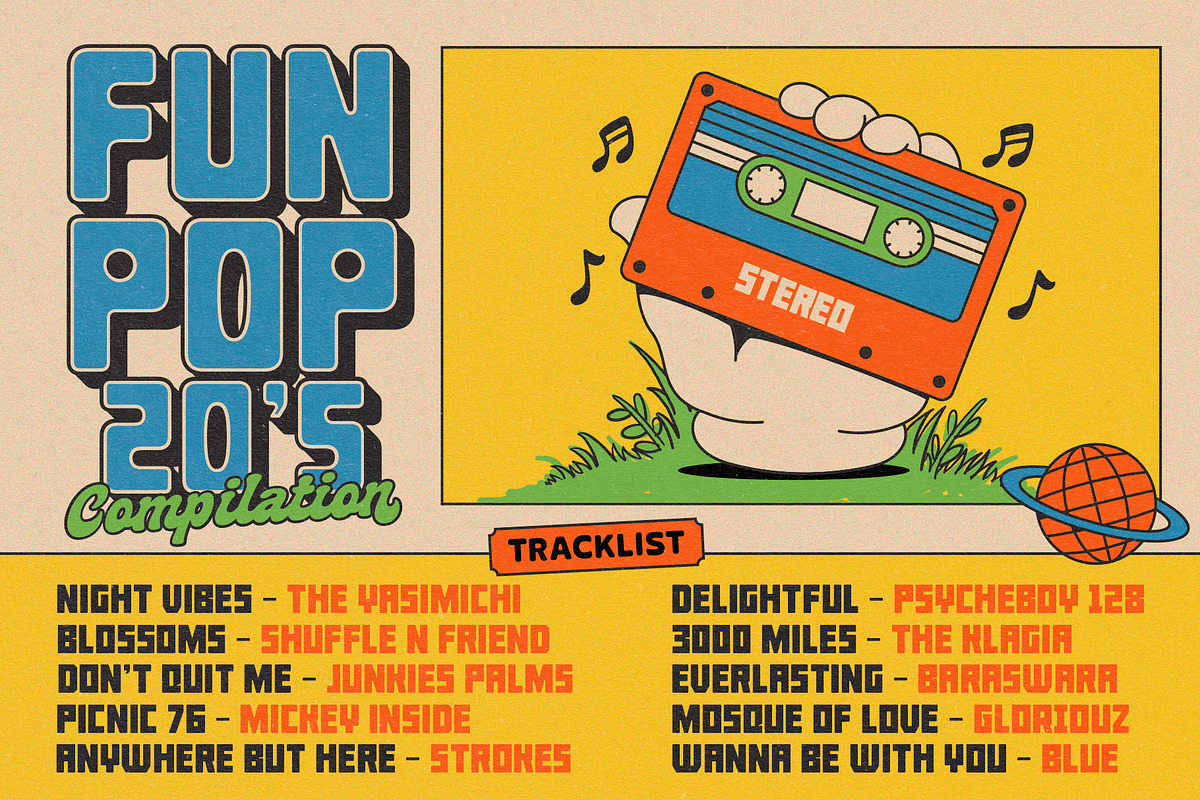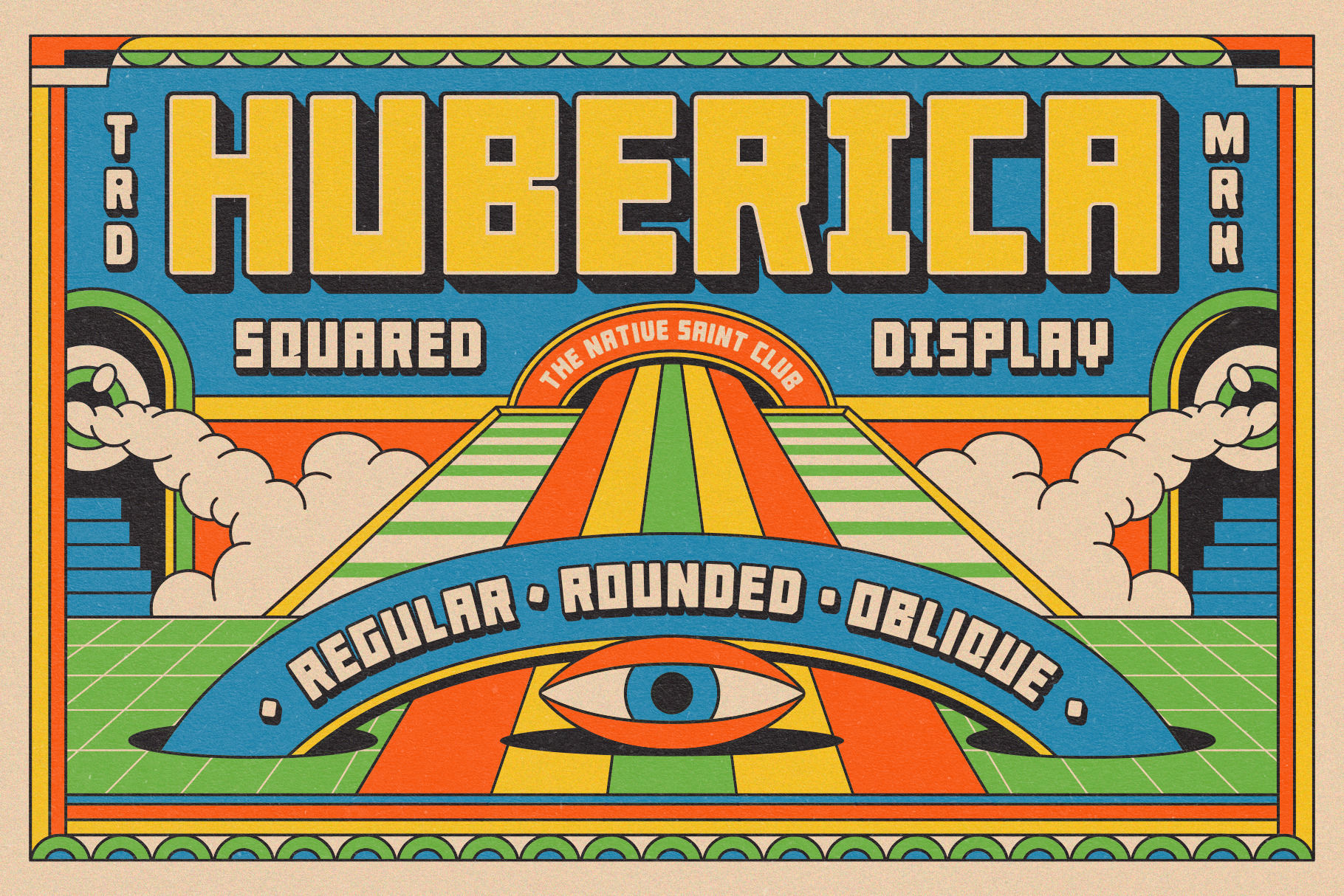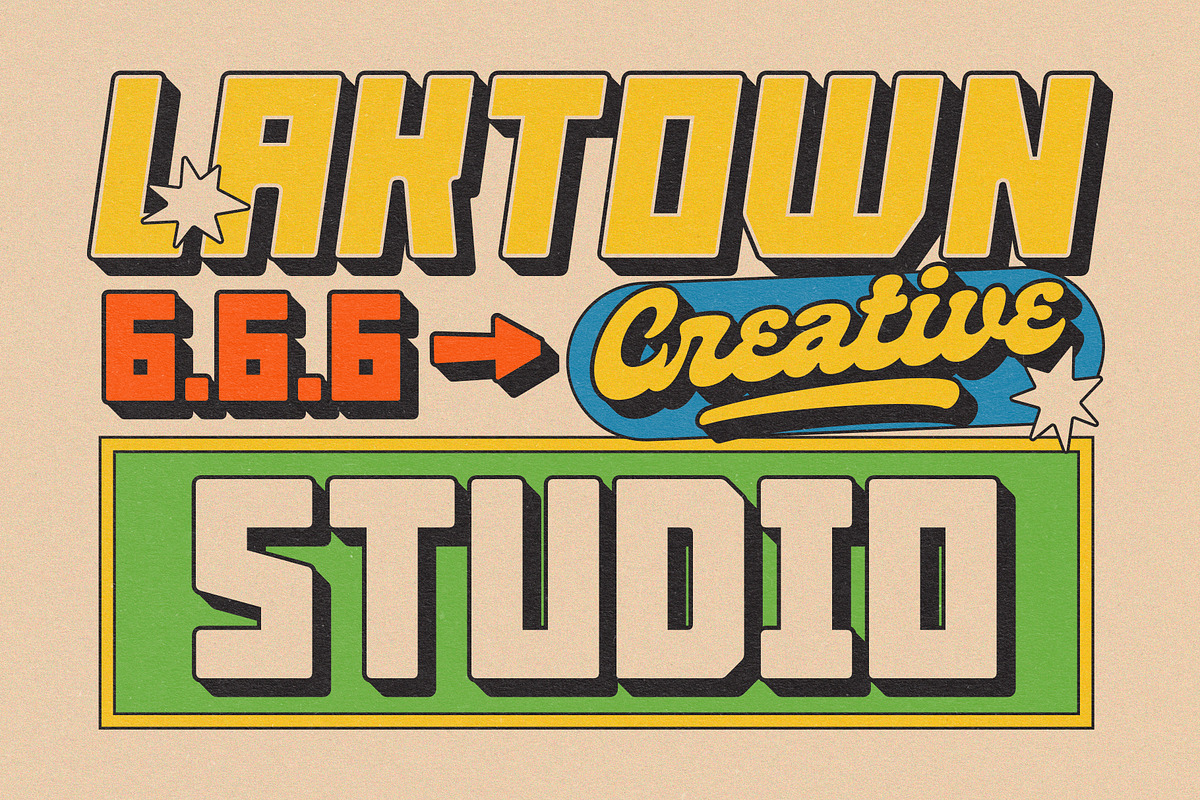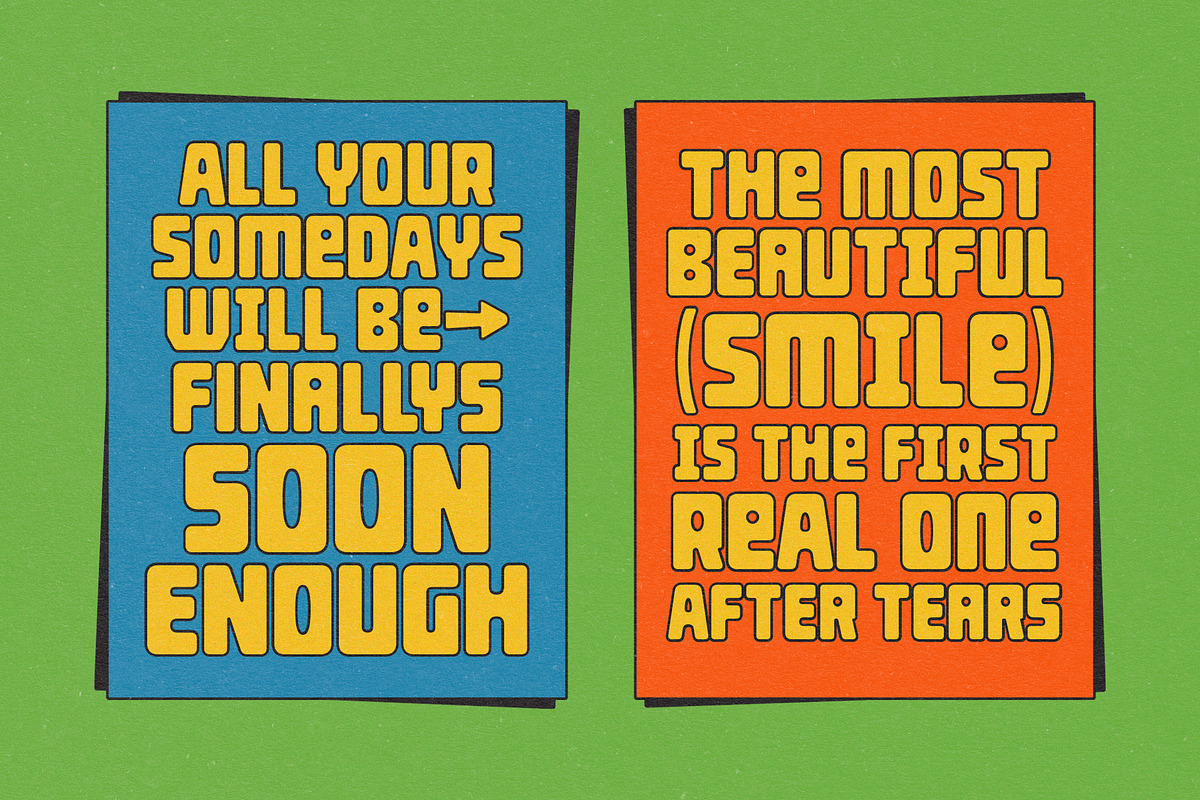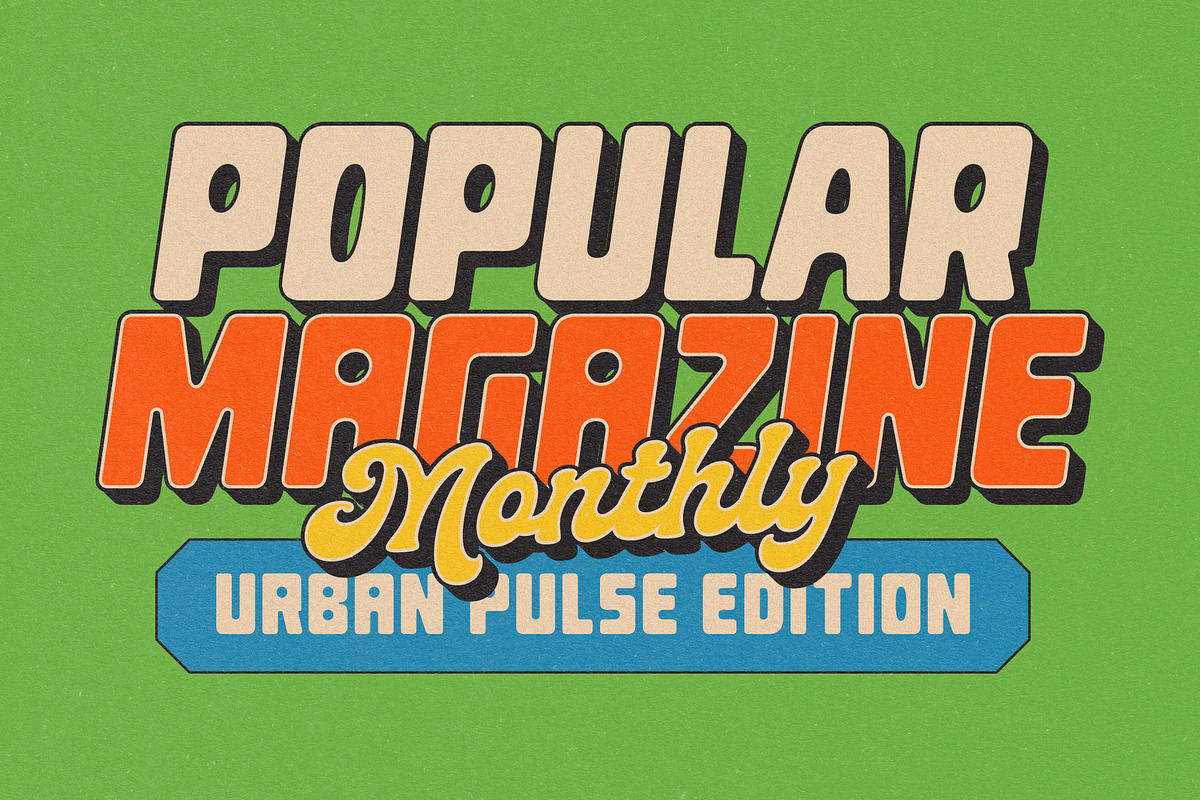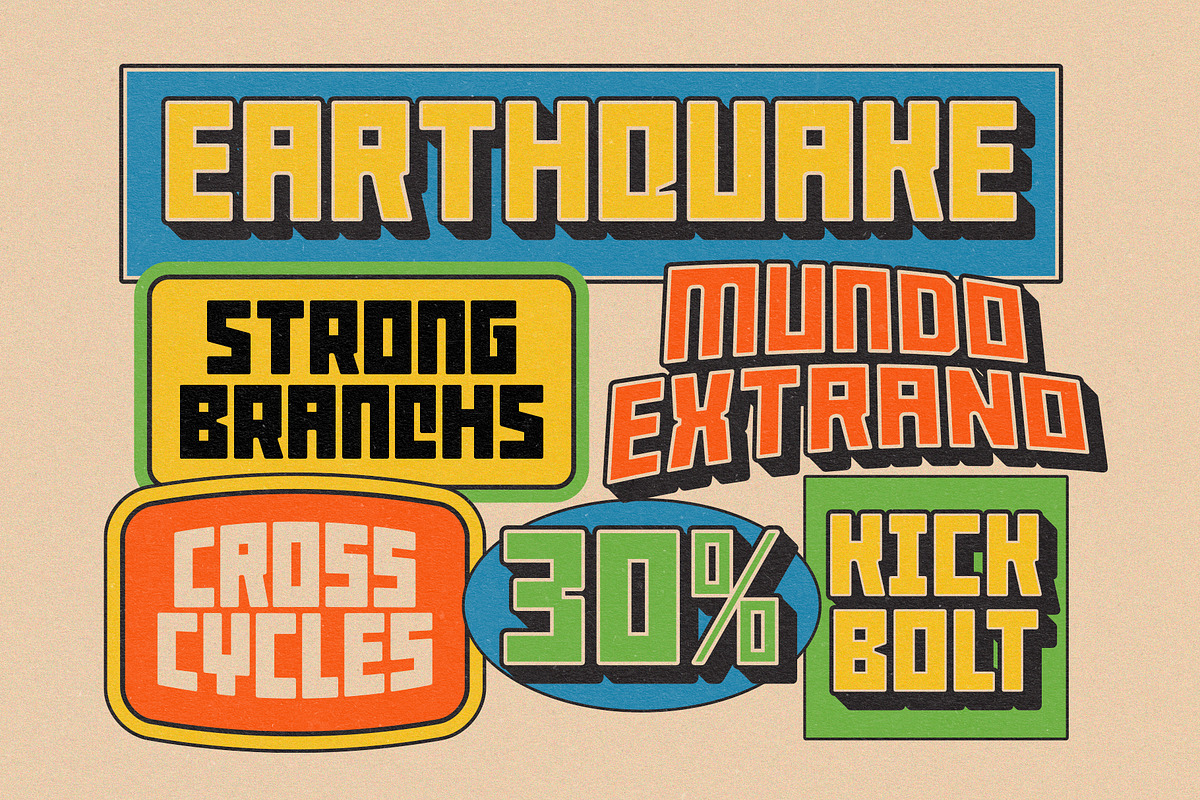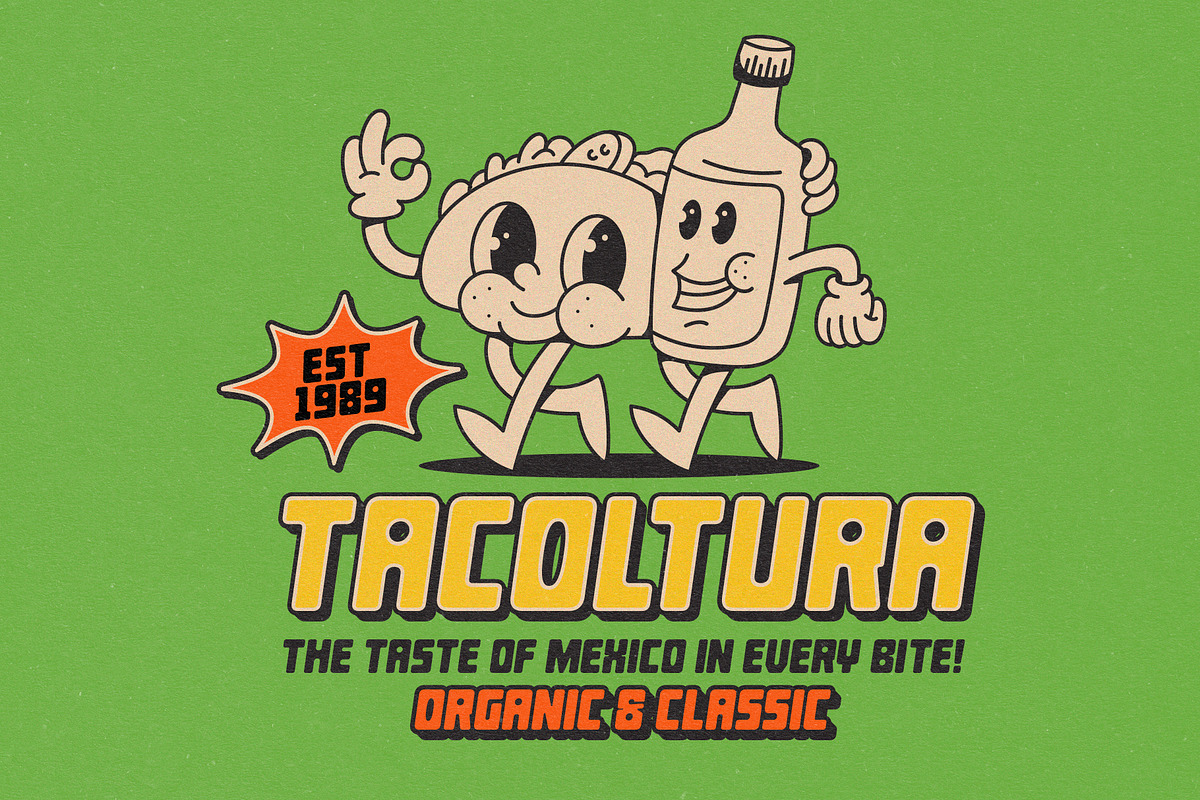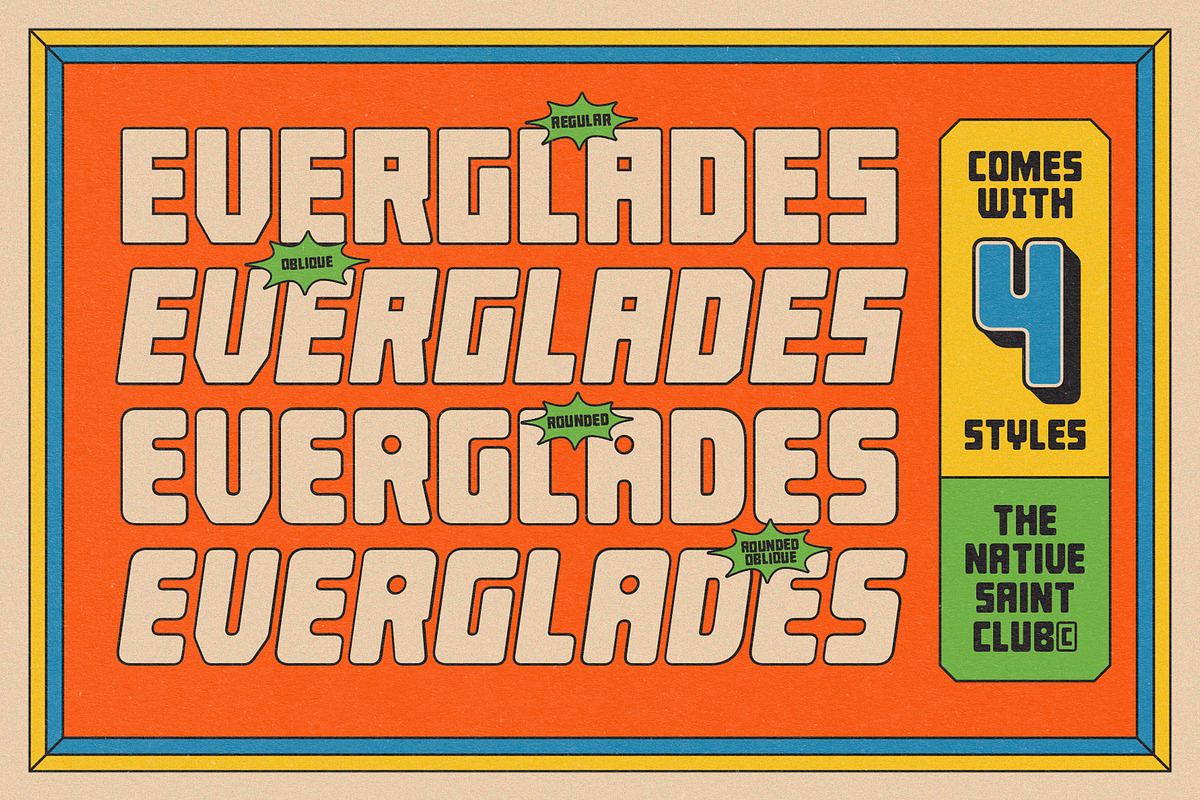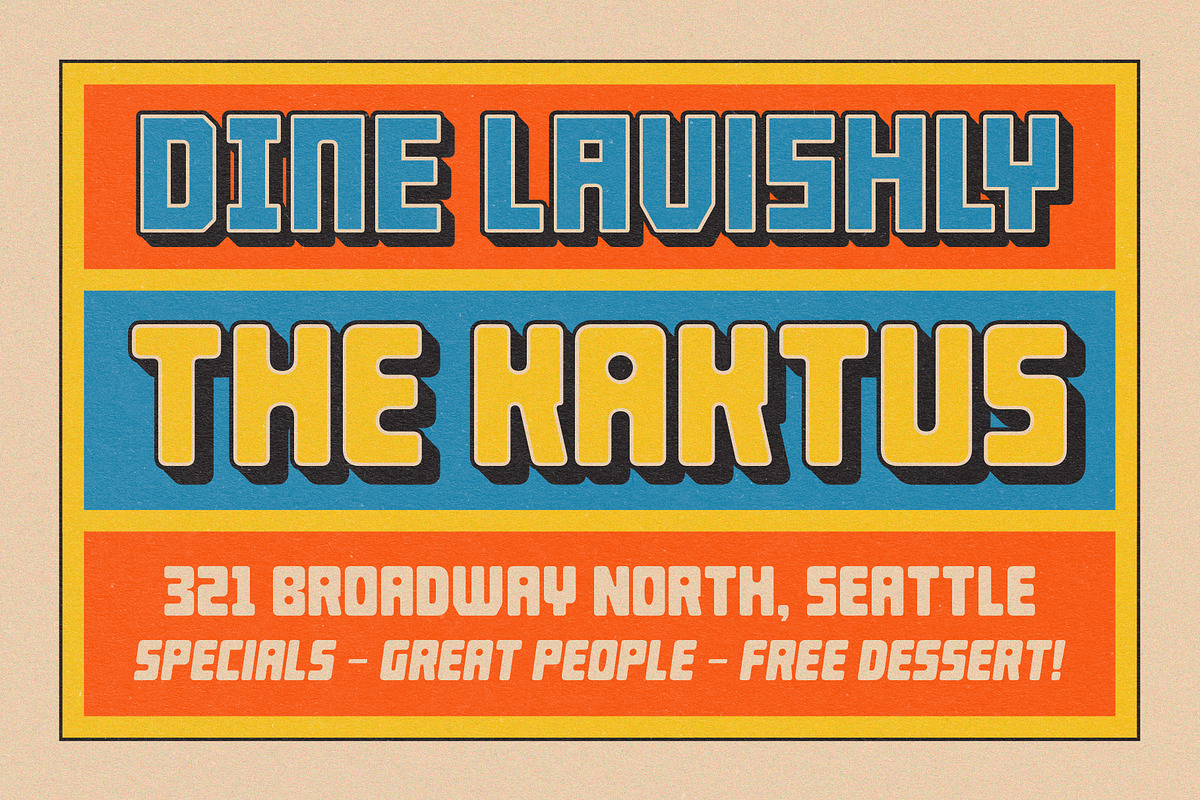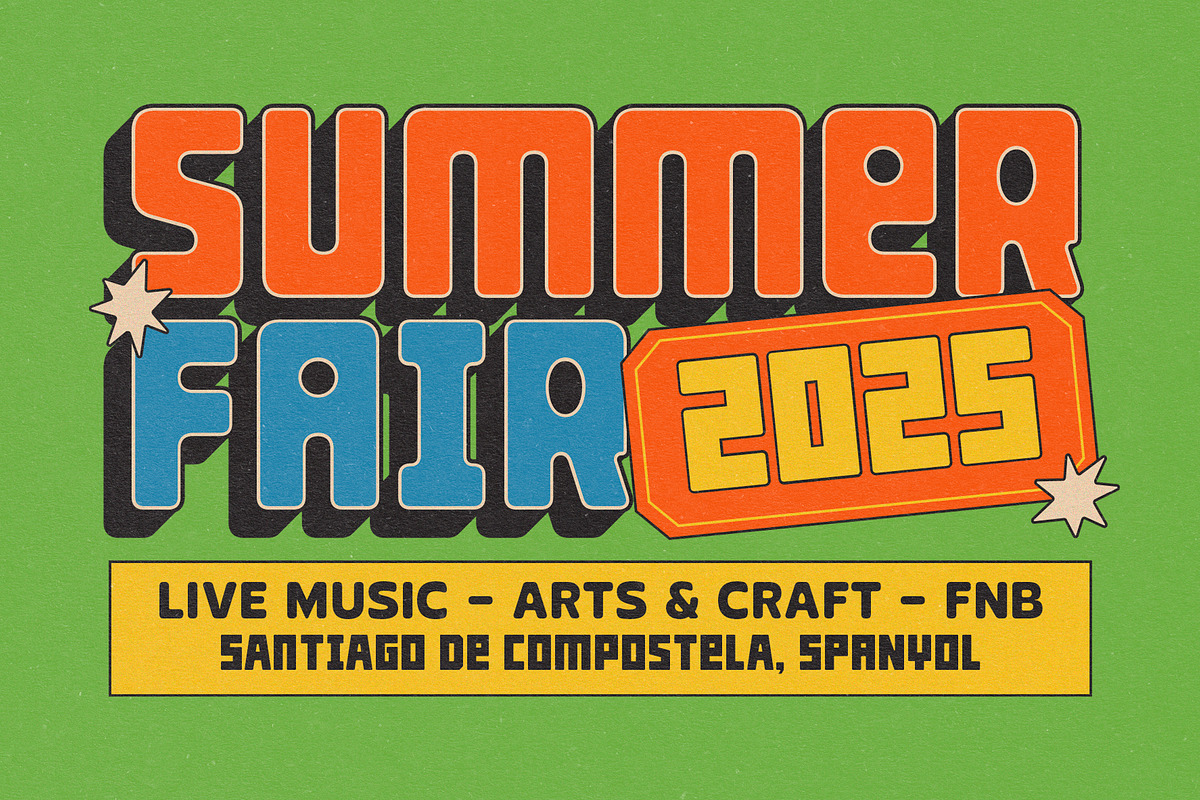
TNSC Huberica - Display Font
TNSC Huberica is a bold, square sans serif font inspired by 1980s poster designs, with strong geometric shapes and a vintage style, ideal for creating headlines as well as branding or posters. Huberica comes in four different styles: Regular, Oblique, Rounded, and Rounded Oblique. And versatile enough for a variety of design projects looking for a balance between modern and classic vibes!